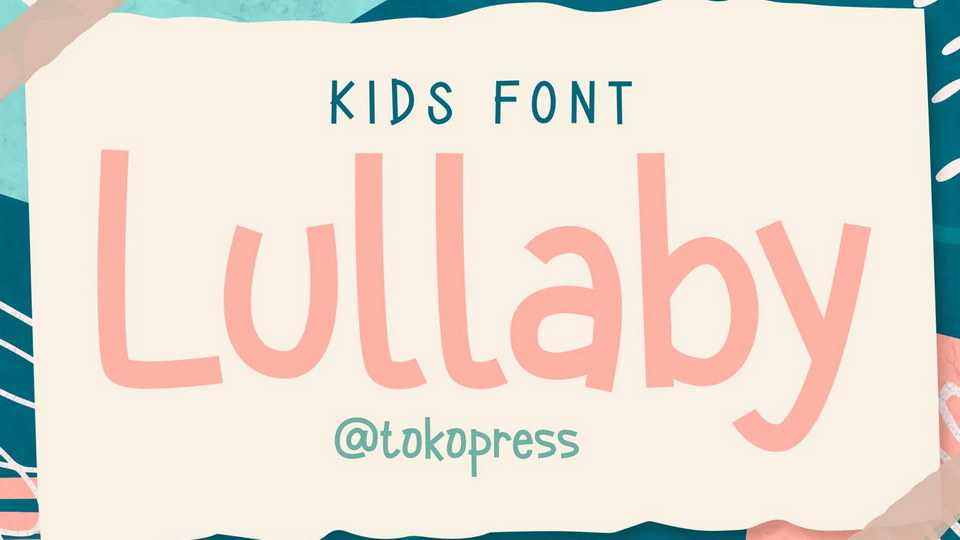
Download Lullaby font, a cute kids typeface. Happiness and joy are what children world. And Lullaby is all about that. It brings a smile all over the place.